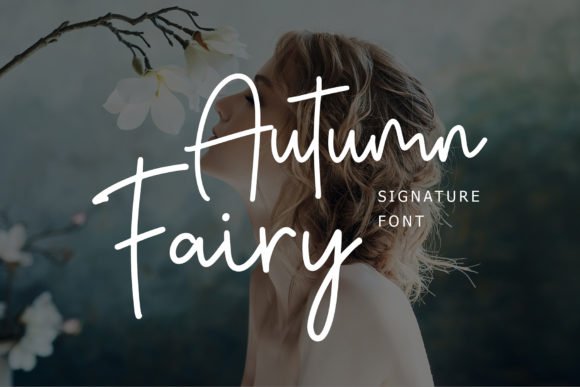
Discover the Magic of Autumn Fairy Font
There’s something special about the feeling of crisp autumn leaves beneath your feet, the smell of pumpkin spice wafting through the air, and the sound of leaves crunching beneath your boots. It’s a moment that sparks creativity and inspires us to create something truly special. For designers, this time of year is a perfect excuse to break out the Autumn Fairy Font and add a touch of whimsy to their projects.
| 👤 Author | Giant Design |
This exquisite handwritten font is more than just a pretty face – it’s a masterfully designed tool that can elevate your designs to new heights. With its classy calligraphic influences and fresh, contemporary feel, the Autumn Fairy Font is a true favorite among designers. Whether you’re working on a wedding invitation, a holiday card, or a marketing campaign, this font is sure to bring your projects to life.
- Unique Characteristics: The Autumn Fairy Font features intricate, hand-drawn designs and ornate details, evoking a sense of whimsy and fantasy.
- Script and Glyphs: The font includes a range of script and glyph variations, adding to its expressive and artistic feel.
Autumn Fairy Font Review
✨ I must say, I’m quite impressed with the whimsical feel of the Autumn Fairy Font. The delicate, hand-drawn style and the subtle texture evoke a sense of nostalgia and wonder. The font’s weight range is quite extensive, making it suitable for a variety of design applications, from headings to body text.
✨ The font’s unique characteristics, such as the intricate flourishes and the irregular letter spacing, add a touch of personality to any design. It’s perfect for creating a warm and inviting atmosphere, especially in designs related to nature, fantasy, or romance.
⚠️ One of the main limitations of the Autumn Fairy Font is its limited legibility at smaller font sizes. The intricate details and textures can make the font appear cluttered and difficult to read in certain situations.
⚠️ Additionally, the font’s unique style may not be suitable for all design projects. Its whimsical feel may not be suitable for more formal or professional designs, where a cleaner and more modern font would be more appropriate.
Overall, I think the Autumn Fairy Font is a great addition to any designer’s toolkit. While it may have some limitations, its unique style and extensive weight range make it a versatile and charming font that can add a touch of magic to any design.
- Use the font for headings and titles to add a touch of whimsy and personality to your design.
- Pair the font with a clean and modern font for body text to create a balanced and visually appealing design.
- Avoid using the font in situations where legibility is crucial, such as in small font sizes or in designs with a lot of text.
The Autumn Fairy Font is ideal for:
- Children’s book illustrations and design
- Party decorations and invitations
- Magazine and newspaper headlines